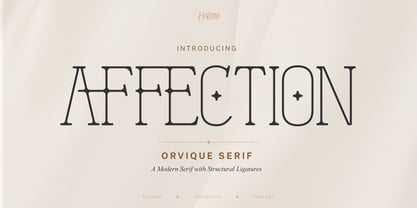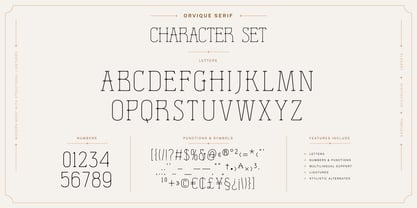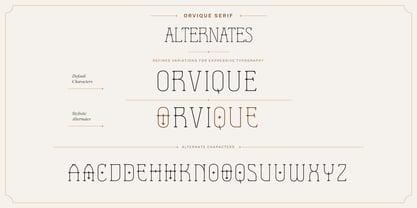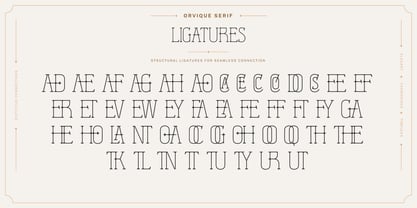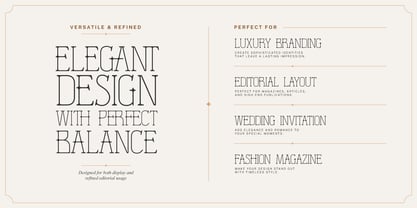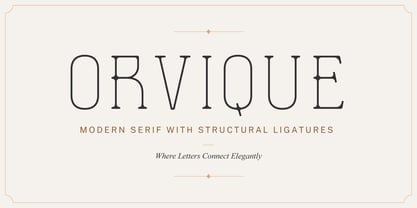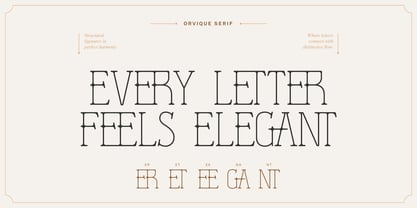
Orvique
by Hakara Type
The Orvique Font Family was designed by Kanisius Adi Klau and published by Hakara Type. Orvique contains 1 styles. More about this family
Orvique Serif is a refined modern serif typeface meticulously crafted for high-end branding, fashion editorials, and sophisticated visual identities. With its graceful curves, distinctive ligatures, and carefully balanced contrast, it offers a timeless aesthetic that elevates any design. This typeface is designed for discerning designers and brands who seek more than just readability; it establishes a strong visual voice that communicates elegance, exclusivity, and premium quality. Ideal for luxury branding, perfume packaging, fashion campaigns, magazine layouts, logos, and social media visuals, Orvique Serif is the perfect choice for creating impactful and memorable designs. Carefully engineered for professional typography use with balanced kerning and readability.
Designers: Kanisius Adi Klau
Foundry: Hakara Type